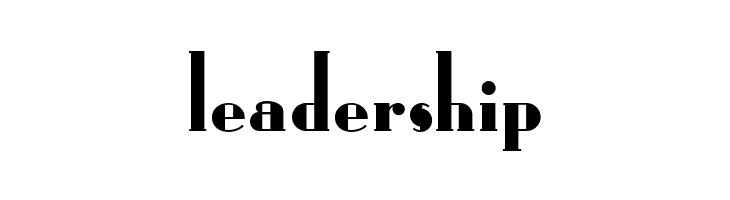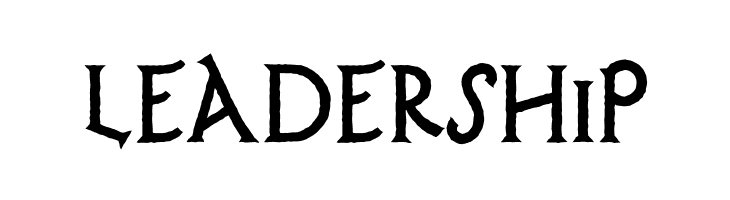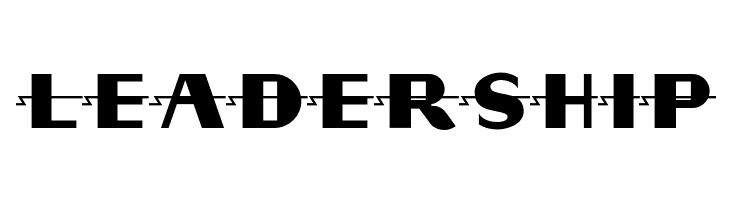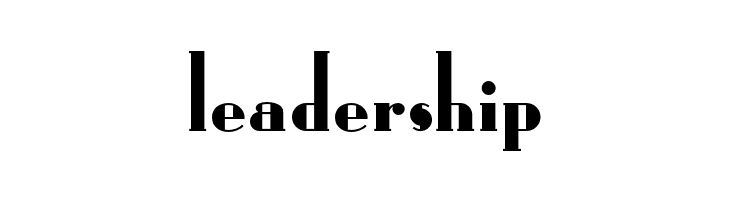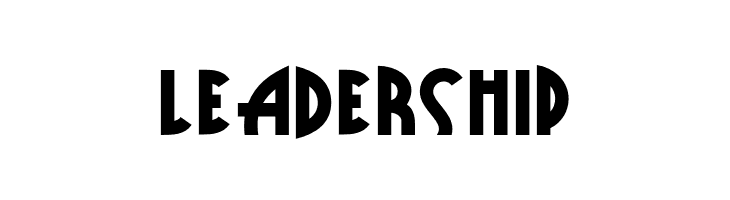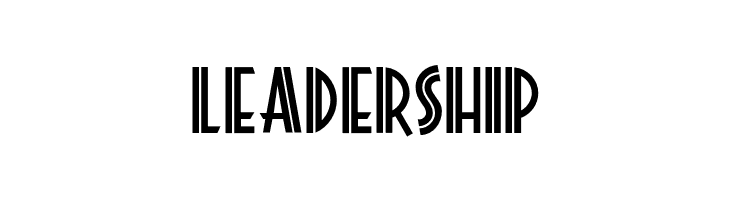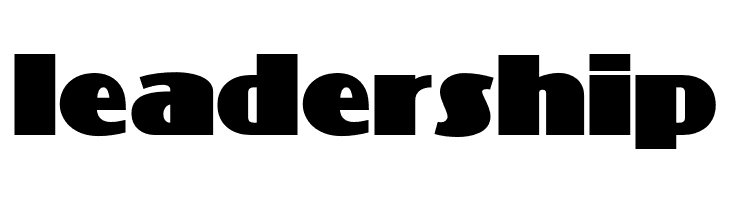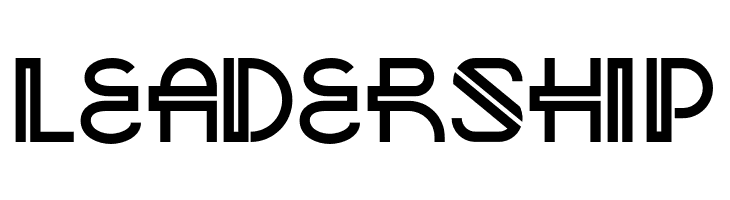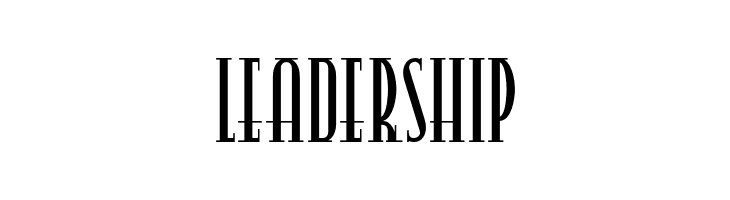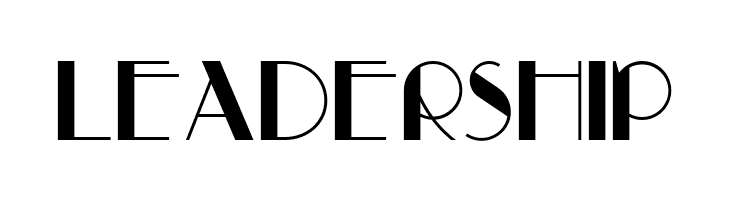
• PhattPhreddy
A bold, rounded font ideal for impactful and attention-grabbing designs.
• PhattPhreddyNF
A bold, modern font with thick strokes and a strong presence.
• Pinball Whiz NF
A bold, condensed font with a strong vertical emphasis and cohesive design.
• PinballWhizNF
A bold, tall, and narrow font with Art Deco influences.
• Platonick NF
A bold, geometric font with Art Deco influences and dynamic character shapes.
• Platonick-Normal
• PlatonickNF
A bold, geometric font with a futuristic and dynamic style.
• Pleasingly Plump NF
A bold, playful font with rounded, tilted characters.
• PleasinglyPlump
A bold, playful font with thick, rounded strokes and a vintage charm.
• Plug Nickel NF
A bold, geometric font with strong lines and modern appeal.
• Plug-NickelBlack
A bold, geometric font with sharp angles and modern flair.
• Points West NF
A bold, elongated serif font with a modern and elegant style.
• PointsWest
A bold, tall, and narrow font with minimal serifs and a modern touch.
• PointsWestNF
A bold, elegant font with tall, narrow characters and decorative serifs.
• PonsonbyNF
A bold, geometric font with high contrast and a striking, modern design.
• Popular Cafe NF
A bold, geometric font with sharp angles and a modern style.
• PopularCafeAA
• PossumSaltareNF
A hand-drawn, medieval-inspired font with sharp serifs and artistic flair.
• Public Enemy NF
A bold, geometric font with Art Deco influences, ideal for impactful designs.
• Public-Enemy
A bold, geometric font with sharp angles and a modern flair.
• PublicEnemyNF
A bold, geometric font with sharp angles and a dynamic style.
• Pyriform Tones NF
A classic serif font with elegant, bold characters and unique lowercase loops.